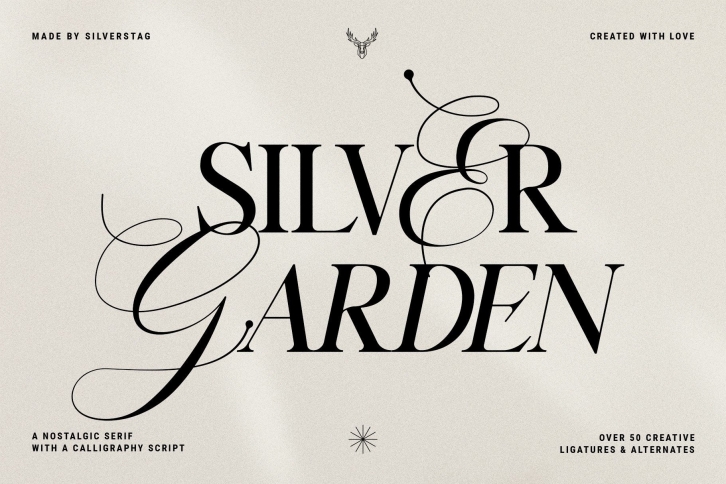
Silver Garden is a brand new, unique and nostalgic typeface. This font family includes 4 font options, regular, italic, bold, and bold italic. The main font is a serif, which in regular and italic looks cool, chic & fashionably elegant, but in bold and bold italic it gets some additional curves so it’s also nostalgic and vintage at the same time.